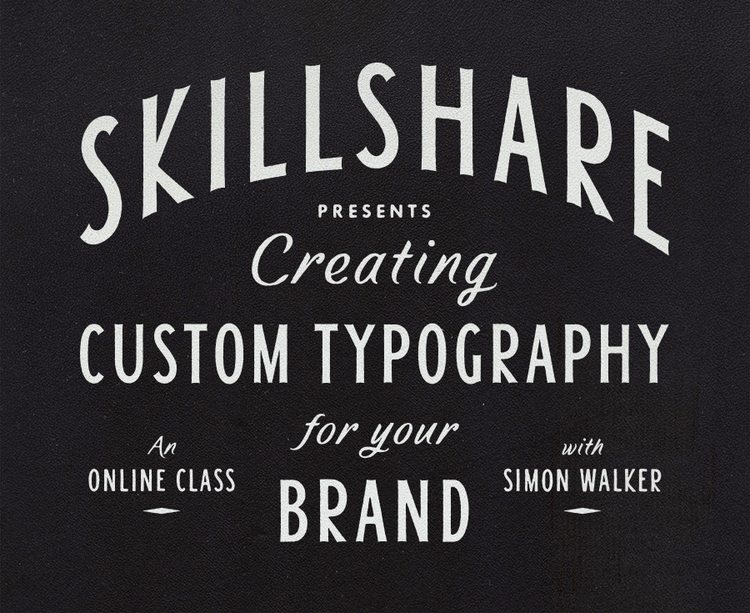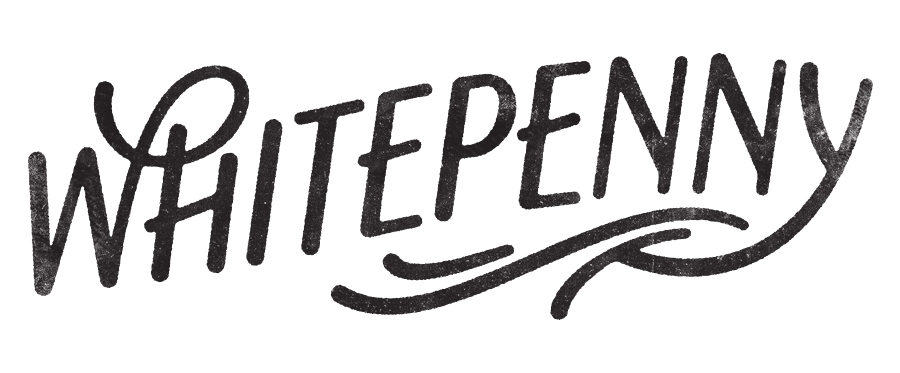
Simon Walker Vintage Custom Type Lettering Tutorial (Skillshare)
Simon Walker is a graphic designer from Texas. Some of his design clients include Nickelodeon, Vanity Fair and Nike, so he has worked with some big brand names.
You can view examples of Simons lettering work on his website 'Simon Walker Type'. A lot of his projects have a vintage feel about them, so if you like vintage Simon is definitely someone to keep on your radar. He's also kindly given me permission to use some of his images in this article which will help to better illustrate his style of lettering.
Early last year Simon added a class to Skillshare, 'Logo Design: New Ways to Create Custom Vintage Type'. The good news is, this class is currently being offered FREE through Skillshare.
I've been checking out this class today, and although as anticipated by the class title there isn't much included in the way of hand lettering. There are definitely some valuable elements you can take away from this class when interested in lettering.
The class is just over an hour and twenty minutes long, so quick and straight to the point. It also offers a really nice insight into the workflow of tweaking, and arranging lettering inside the program Illustrator. Simon starts off by sketching some logo design ideas down on paper, and then creates lettering and a logo directly inside of Illustrator. This is probably not the usual path a hand letterer would follow, as much of the lettering would be created on paper first. However once Simon starts tweaking and arranging letters, much of what he demonstrates can be applied to hand lettering if it has been vectorised.